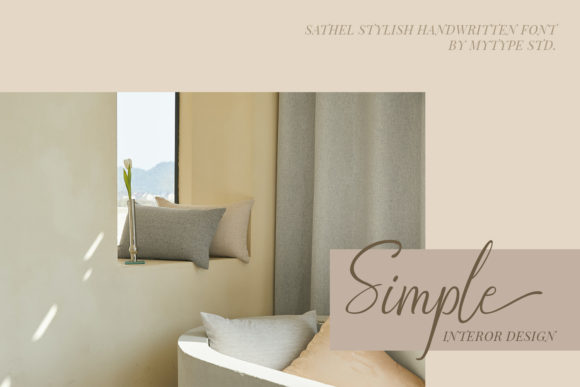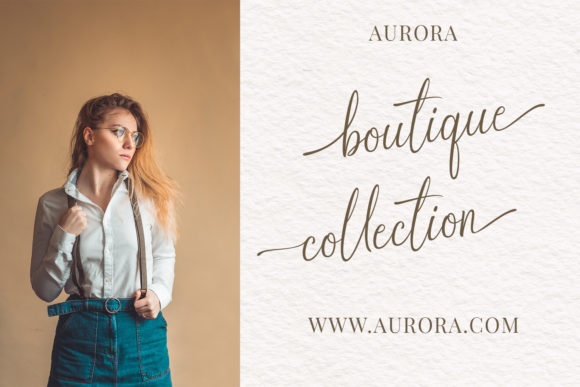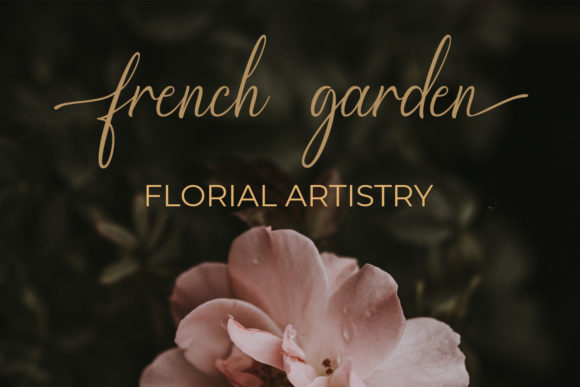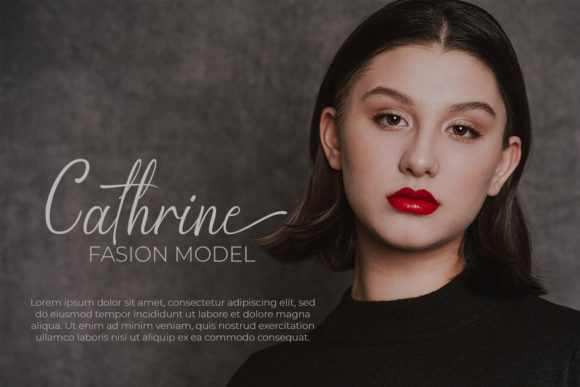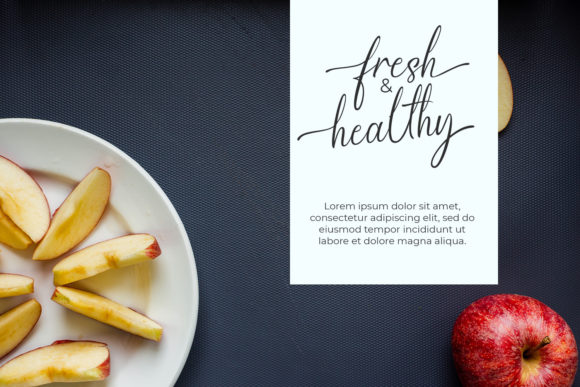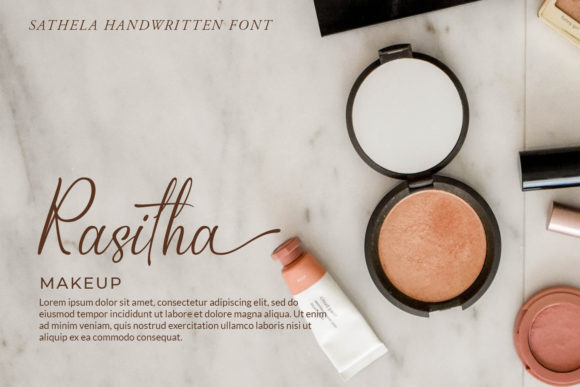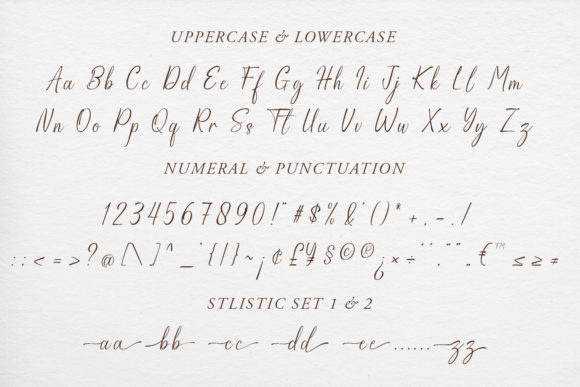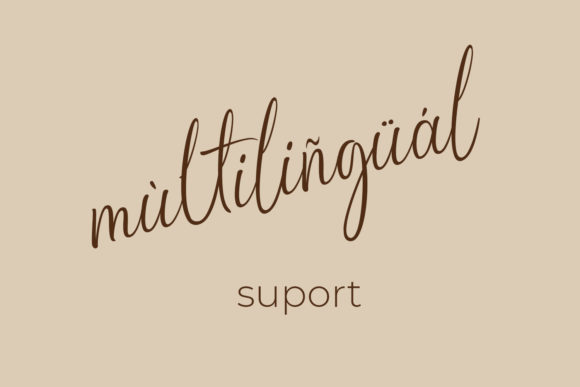
Sathela Font
About Sathela Font
Introducing Sathela, a beautiful script font that combines natural movements with an elegant and classy style. With its flowing curves and sophisticated letterforms, Sathela adds a touch of grace and refinement to your designs.
This font is perfect for various creative projects, allowing you to add a touch of elegance and personality to your work. Whether you’re creating photography watermarks, stationery, labels, name tags, invitations, or any other design that requires a stylish and sophisticated font, Sathela is a versatile choice.
The natural movements of Sathela’s letterforms create a sense of fluidity and harmony. Each character is carefully crafted to maintain a balance between legibility and aesthetics, ensuring that your designs are both visually appealing and easy to read.
Sathela’s elegant and classy style makes it suitable for a wide range of applications. It can be used in branding projects, logo designs, packaging, wedding stationery, and much more. Its versatility allows it to adapt to various design themes and aesthetics, adding a touch of sophistication to any project.
With its PUA encoding, accessing the special glyphs and swashes of Sathela is effortless. This means you can easily incorporate unique and decorative elements into your designs, adding a personalized and customized touch. Whether it’s a decorative swirl, a stylish ligature, or a flourishing alternate character, Sathela gives you the freedom to explore and enhance your designs.
Furthermore, Sathela provides multilingual support, ensuring that you can use the font in projects with diverse language requirements. It allows you to communicate your message effectively across different regions and cultures.
So, if you’re looking for a beautiful script font with natural movements and an elegant style, Sathela is the perfect choice. Elevate your designs with its graceful curves and sophisticated letterforms. Unlock the full potential of Sathela with its PUA encoded glyphs and swashes, and create designs that are both visually captivating and uniquely yours.